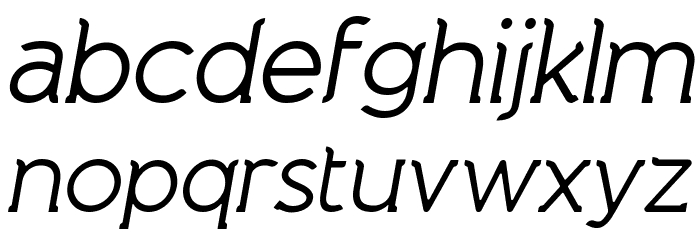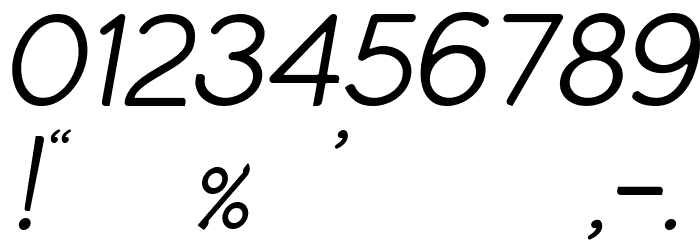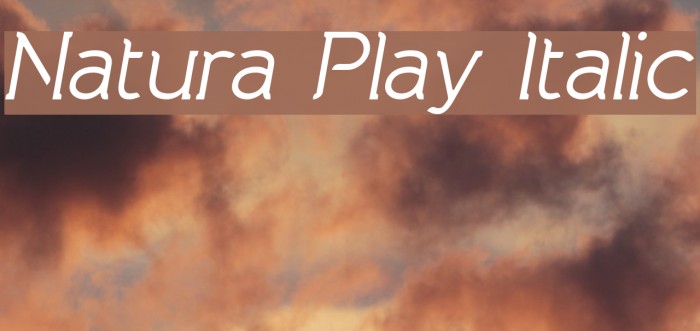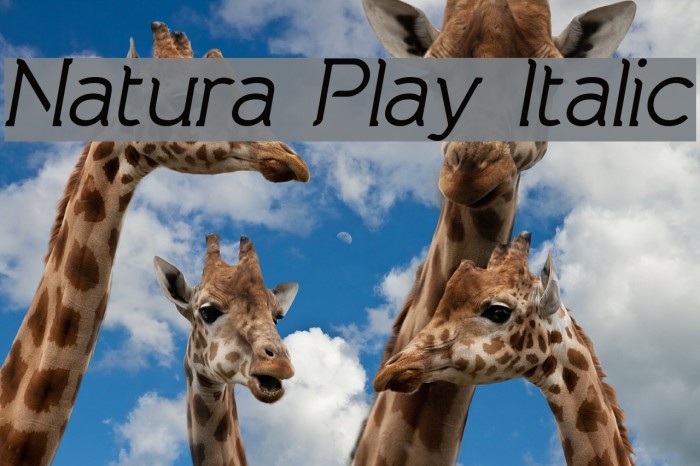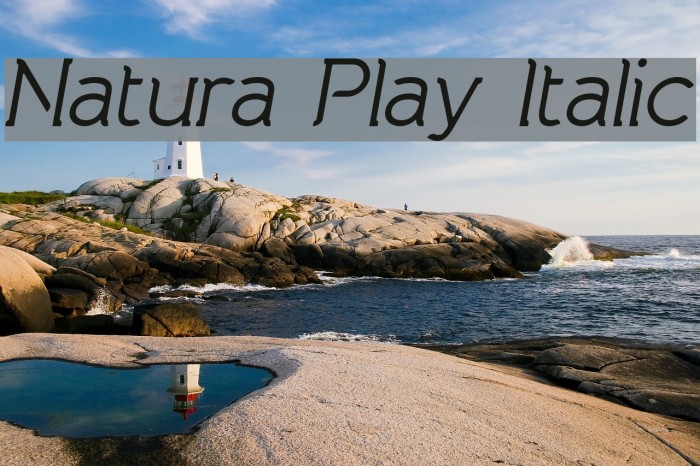
Natura Play Italic Font
This font exhibits a sleek and modern design with a subtle italic slant, giving it a dynamic and fluid appearance. The characters are crafted with smooth curves and clean lines, providing a sense of elegance and sophistication. The uppercase letters are slightly taller than the lowercase, maintaining a consistent style throughout. The numerals are well-proportioned, ensuring readability. Special characters are designed to complement the overall aesthetic, making this font versatile for various applications.
A sleek, modern italic font with smooth curves and clean lines.
- Proposed Projects: Ideal for branding, editorial design, and digital media where a modern and elegant touch is desired.
- Use Case: Headlines, Body text, Logos